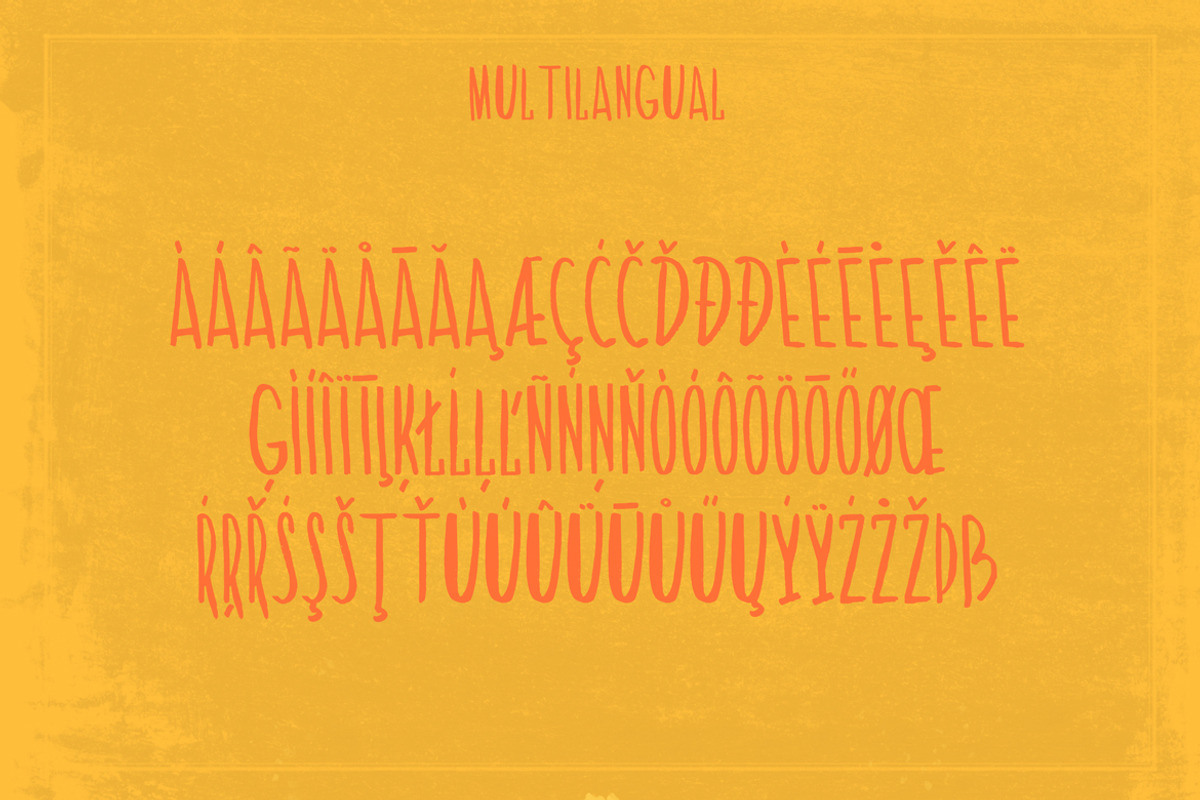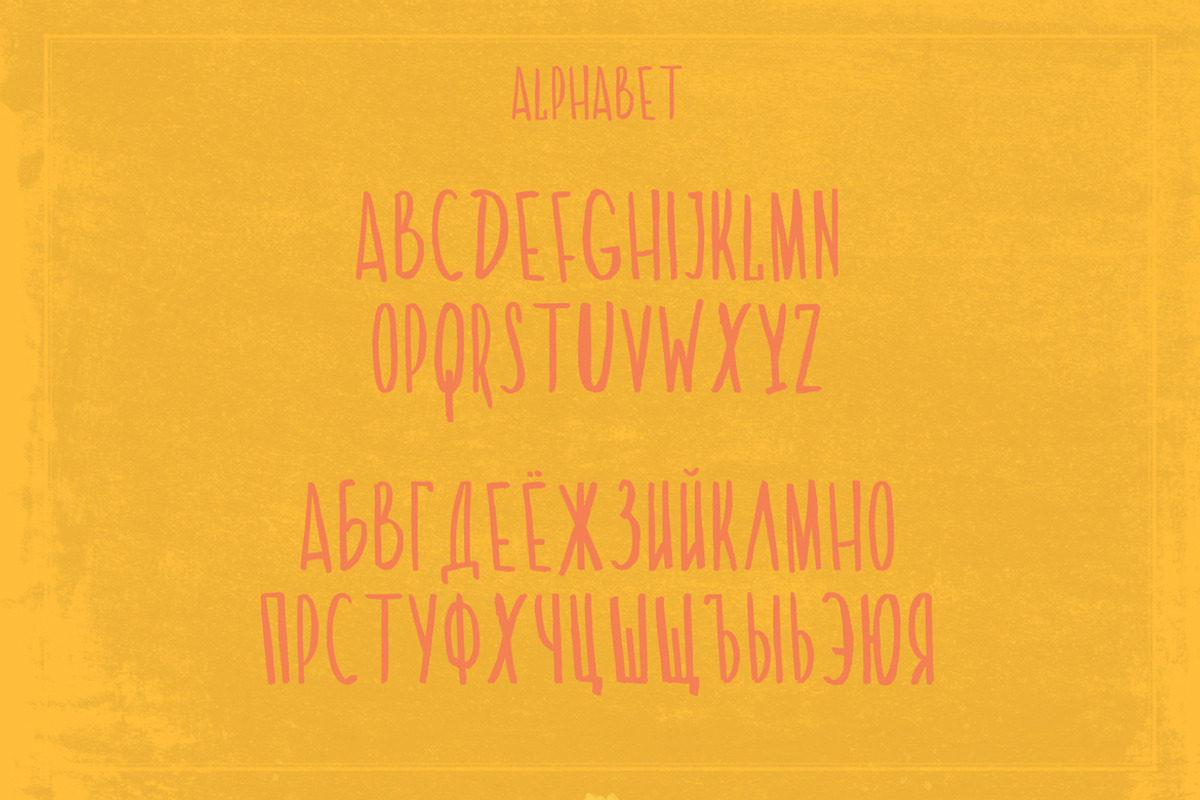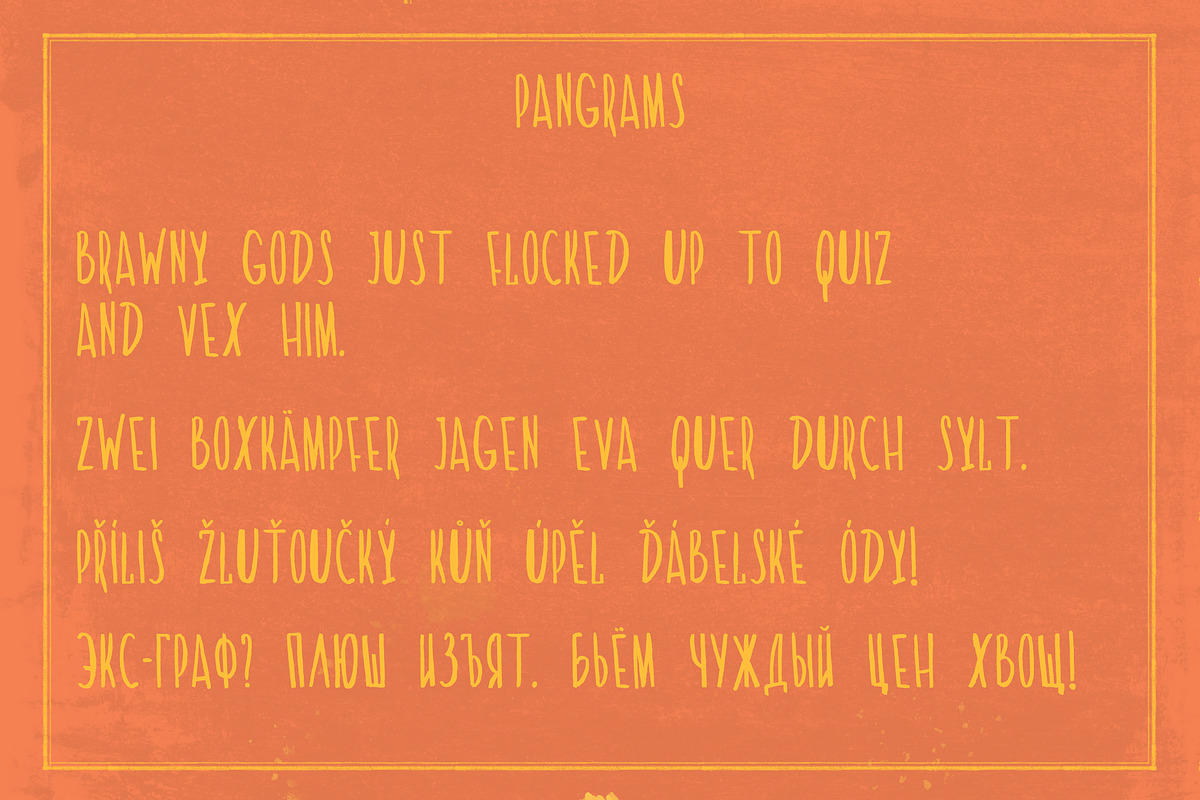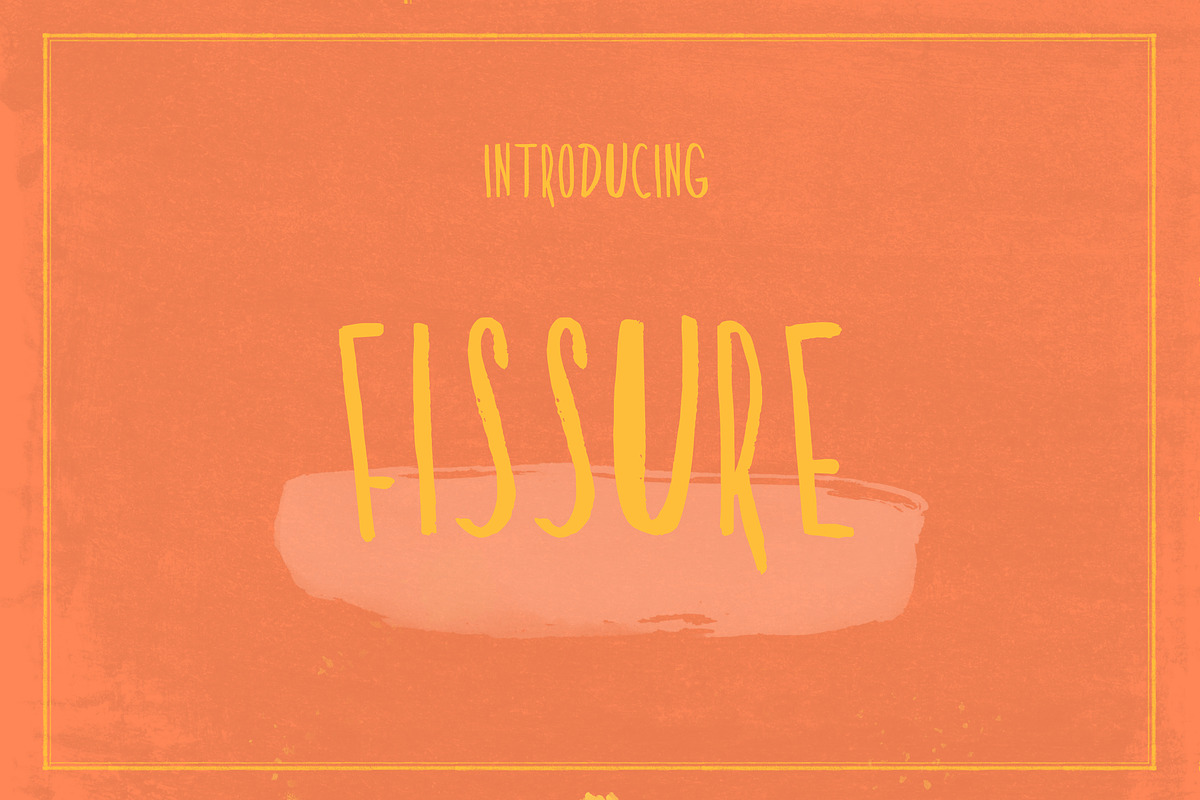
Fissure
Fissure is handwritten font with dry brush texture made from marker. Fissure is suitable for logo, product branding or for text overlay to any background image. It includes uppercase letters, numerals & glyphs.
It supports:
- Basic Latin alphabet
- Western-European languages
- Central-European languages
- Southeastern-European languages
- Cyrillic (Russian and Ukrainian)